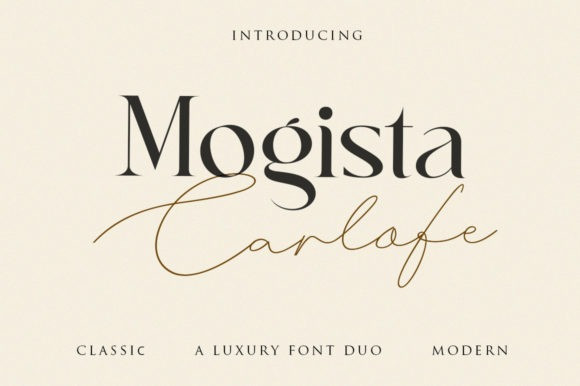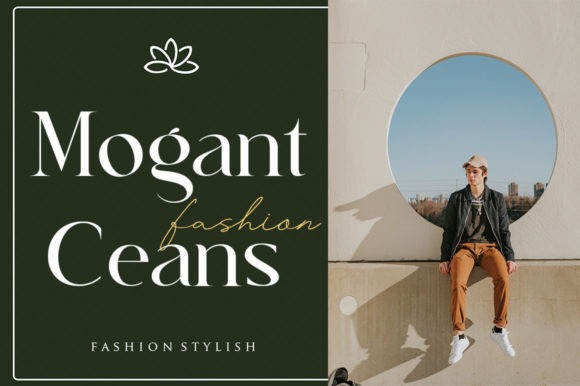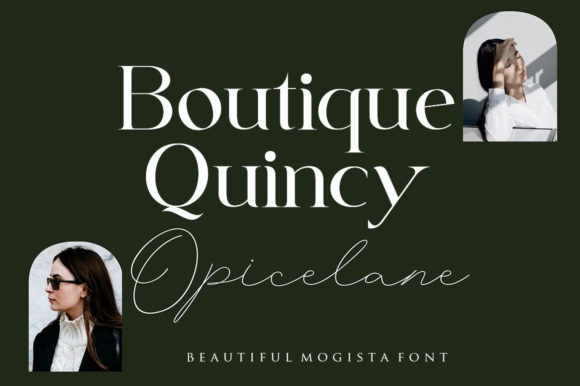
Mogista Carlofe Font
Mogista Carlofe is a stunning and comprehensive duo font (script and serif), ideal for giving your projects a branded but friendly feel. The two included styles can be combined together perfectly but are also beautiful on their own.